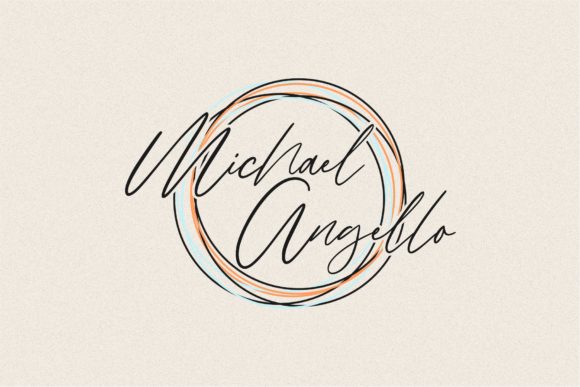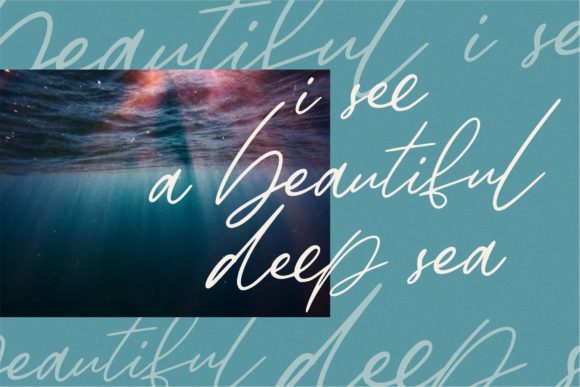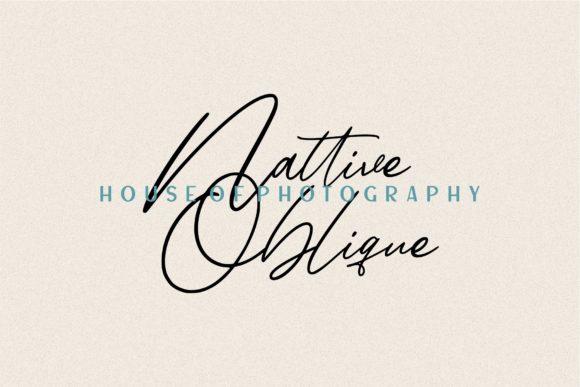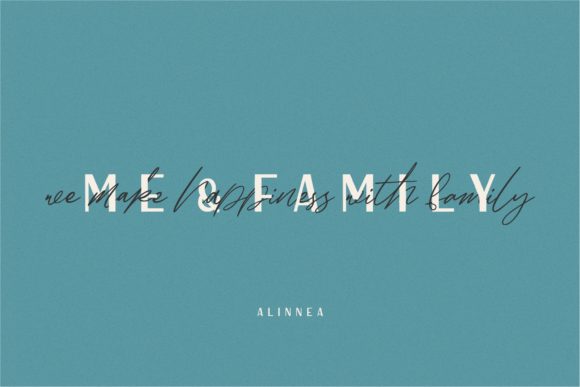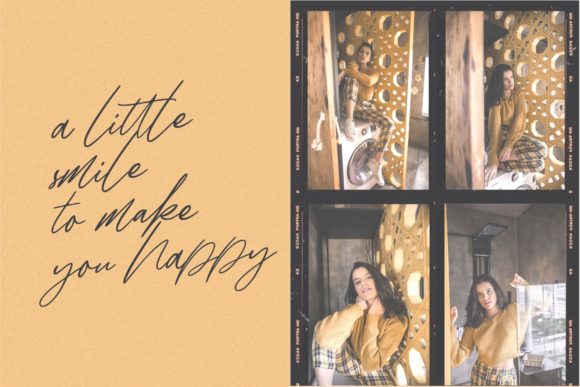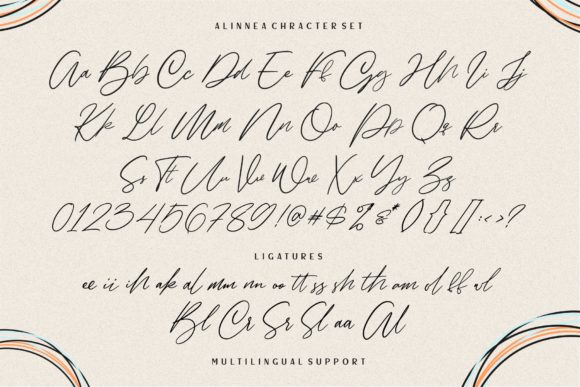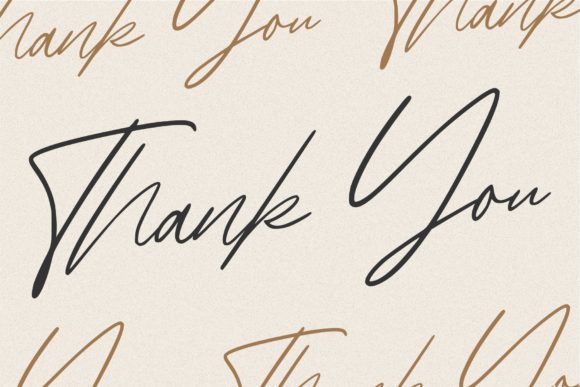
Alinnea Font
About Alinnea Font
Alinnea is a beautiful and authentic script font with a sophisticated feel. It will effortlessly turn any creative project into a true stand out.